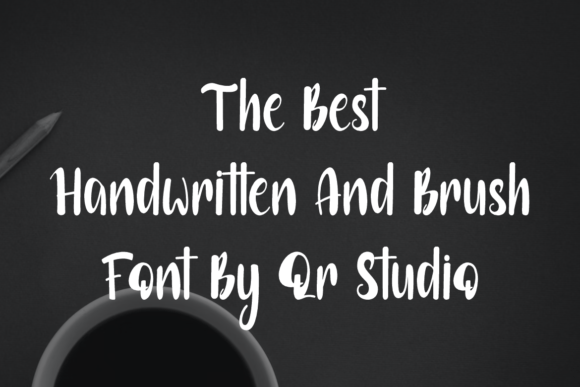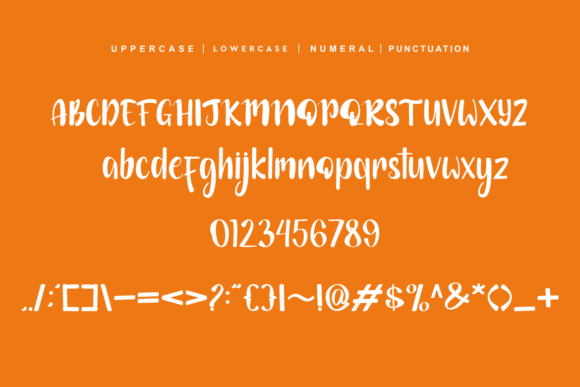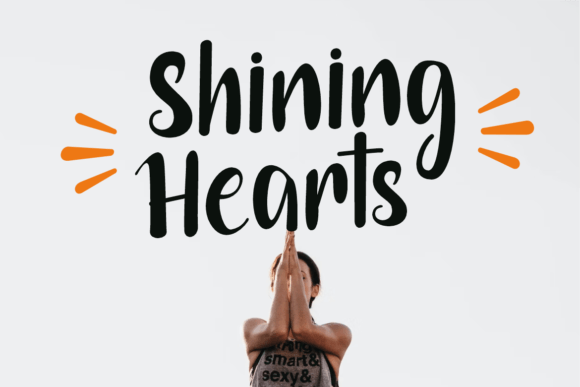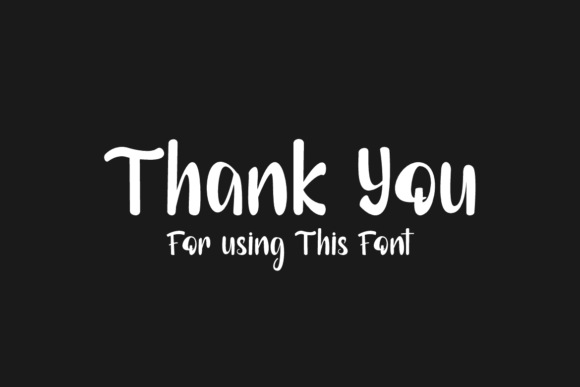
Unleashing Your Creativity: Introducing Anthasena Fortepuire Font
Have you ever found yourself scribbling down ideas on a piece of paper, only to have them transform into a beautiful handwritten font in your mind? That’s exactly the magic of designing with the right tools. And, for those who crave that perfect blend of elegance and uniqueness, the Anthasena Fortepuire Font is here to set your imagination free.
This sweet and friendly handwritten font is designed to help you bring your most creative ideas to life. With its natural and unique style, the Anthasena Fortepuire Font is the perfect companion for designers looking to add a personal touch to their work. Whether you’re creating a logo, a poster, or a social media graphic, this font is sure to elevate your designs and make them truly stand out.
Key Features of Anthasena Fortepuire Font
- Unique Characteristics: Anthasena Fortepuire Font features a unique blend of modern and antique elements, making it suitable for various design applications, including luxury branding, high-end packaging, and vintage-inspired artwork.
- Font Styles: Anthasena Fortepuire Font is available in multiple styles, including Regular, Bold, Italic, and Bold Italic, offering users flexibility in their design choices.
Designer Review: Anthasena Fortepuire Font
I recently had the chance to work with the Anthasena Fortepuire Font, and here’s my honest take on it.
- The unique blend of elegance and playfulness in the design is quite refreshing. It’s not your average font.
- The varied x-height and letter spacing add a nice touch to the overall aesthetic, making it perfect for creative projects.
- The font’s versatility is impressive, suitable for both display and body text.
- The font’s complexity can be overwhelming for smaller text sizes, making it difficult to read.
- Some letterforms may not be suitable for digital screens, resulting in potential display issues.
- The font’s character set could be more comprehensive to include all languages and special characters.
Overall, the Anthasena Fortepuire Font is an excellent choice for designers looking to add a touch of sophistication and whimsy to their projects. While it may have some limitations, its unique design and versatility make it a great addition to any font collection.
The Anthasena Fortepuire Font is ideal for creating elegant and sophisticated designs. Here are some tips and common use cases:
- Use the font for headings and titles to add a touch of luxury.
- Pair the font with bold or italic styles for emphasis.
- Use the font for invitations, wedding designs, and other formal events.